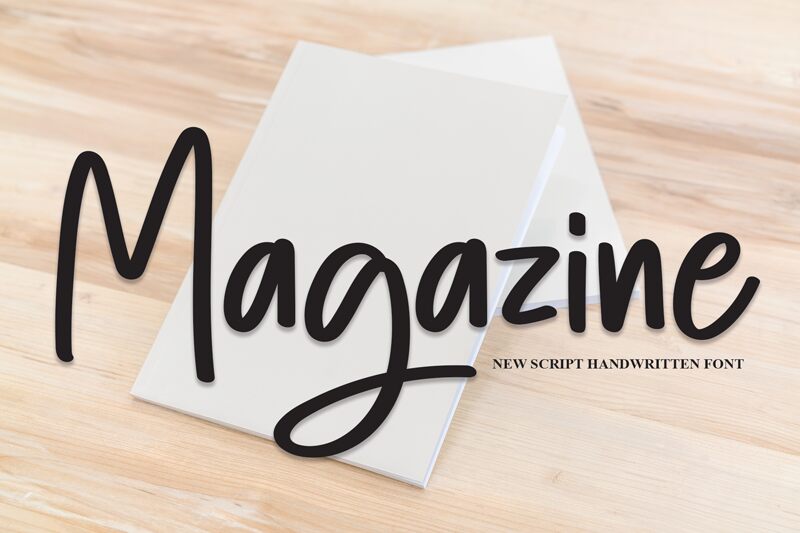
Magazine
Magazine, designed by Scratchones, is a charming handwritten font with a semi-light weight. Its playful strokes and organic feel make it perfect for projects seeking a touch of whimsy and authenticity.
With its elegant curves and graceful lines, Magazine lends itself well to various design endeavors. Whether used in fashion magazines or lifestyle blogs, this font adds a delightful flair to invitations, greeting cards, or branding materials. Its versatility also makes it suitable for children's books, food packaging designs, or even social media graphics.
Magazine font effortlessly combines sophistication with a playful charm that captivates readers in any context.
The latest style letters are perfect for wall displays, wedding invitations, social media post logos, advertisements, product packaging, product designs, labels, photography, watermarks, invitations, stationery, and any project that requires taste handwriting.